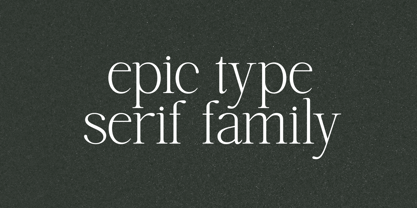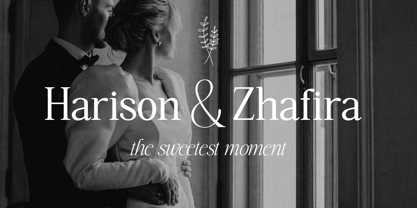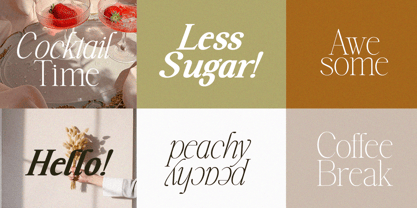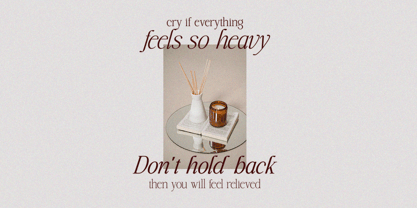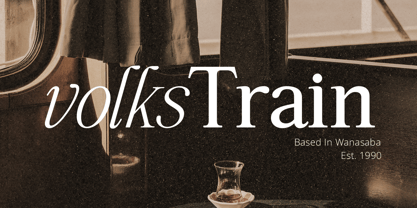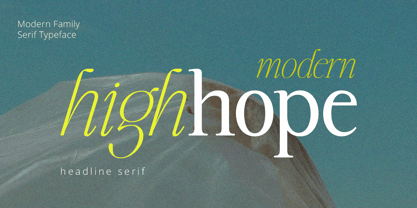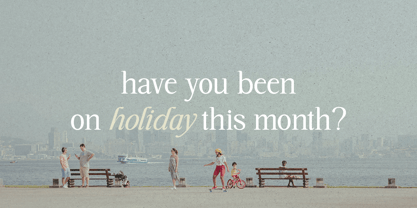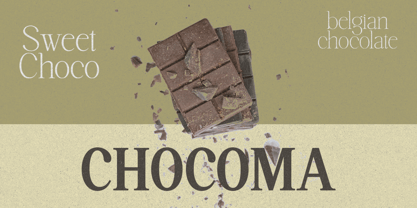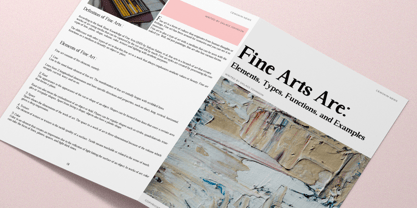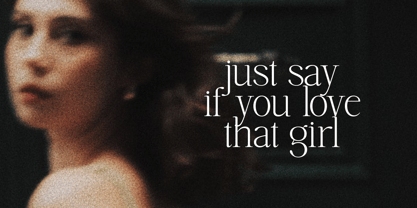
Highhope Serif
by Spectype
The Highhope Serif Font Family was designed by Fahmi Iman and published by Spectype. Highhope Serif contains 14 styles and family package options. More about this family
this is my newest font called Highhope Serif Family . This font has a classic retro style but is packaged in a modern way to make your work projects more attractive and aesthetic.
Designers: Fahmi Iman
Foundry: Spectype